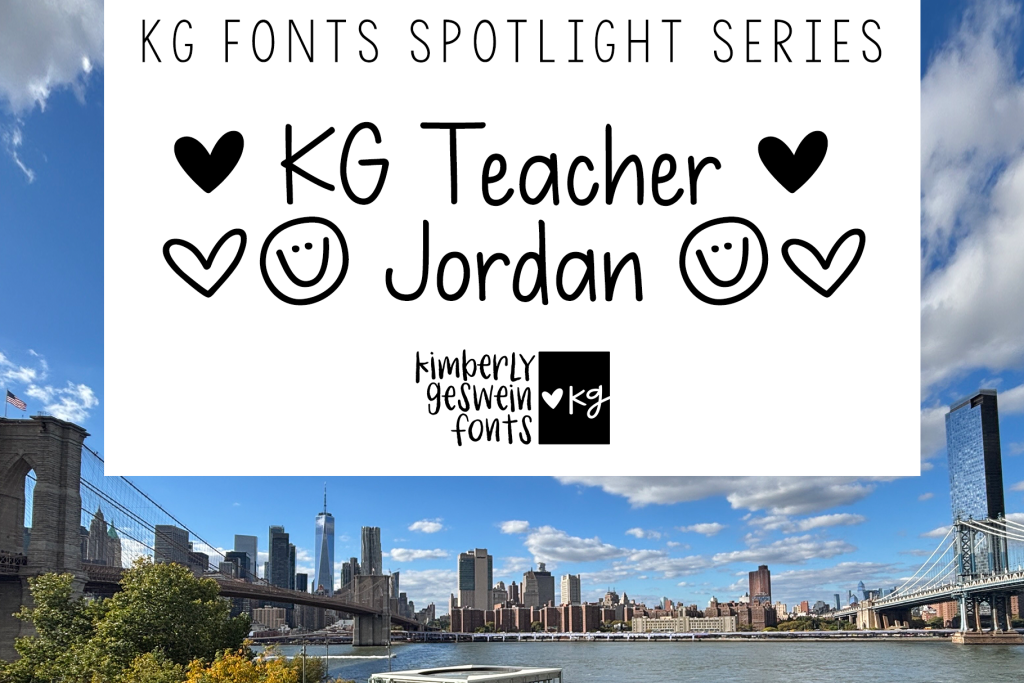
KG Teacher Jordan
Brought to you by the KG Fonts TikTok follower-submitted handwriting spotlight series, KG Teacher Jordan is perfect for teachers! You’ll love the neat letters and the super cute extras tucked in the vertical bar key, backslash, and circumflex | \ ^ for easy pasting!